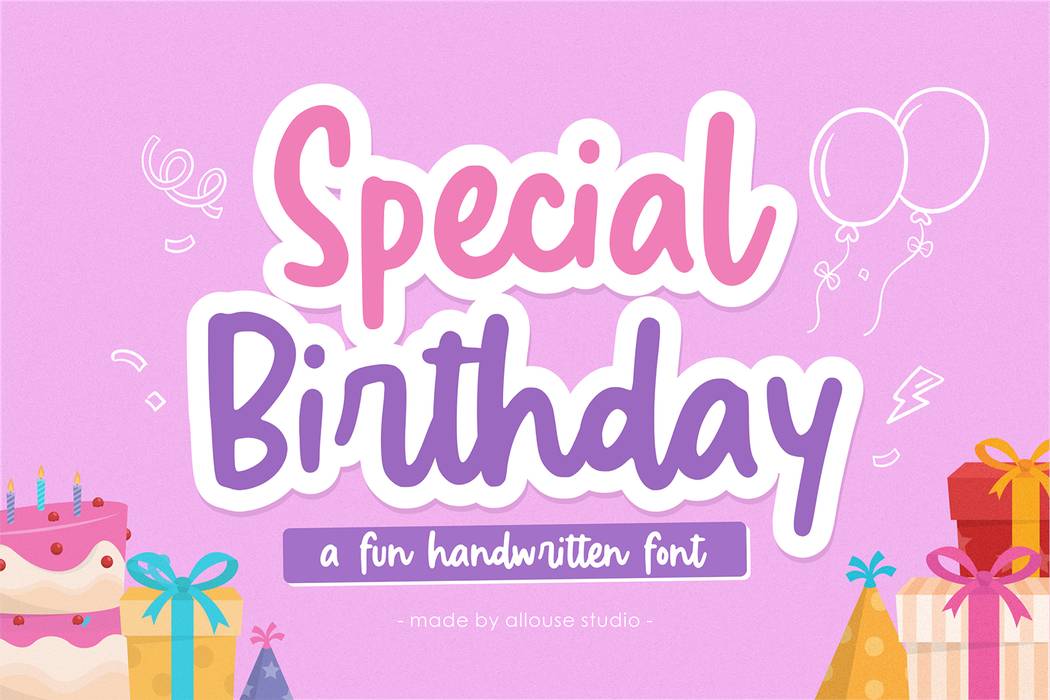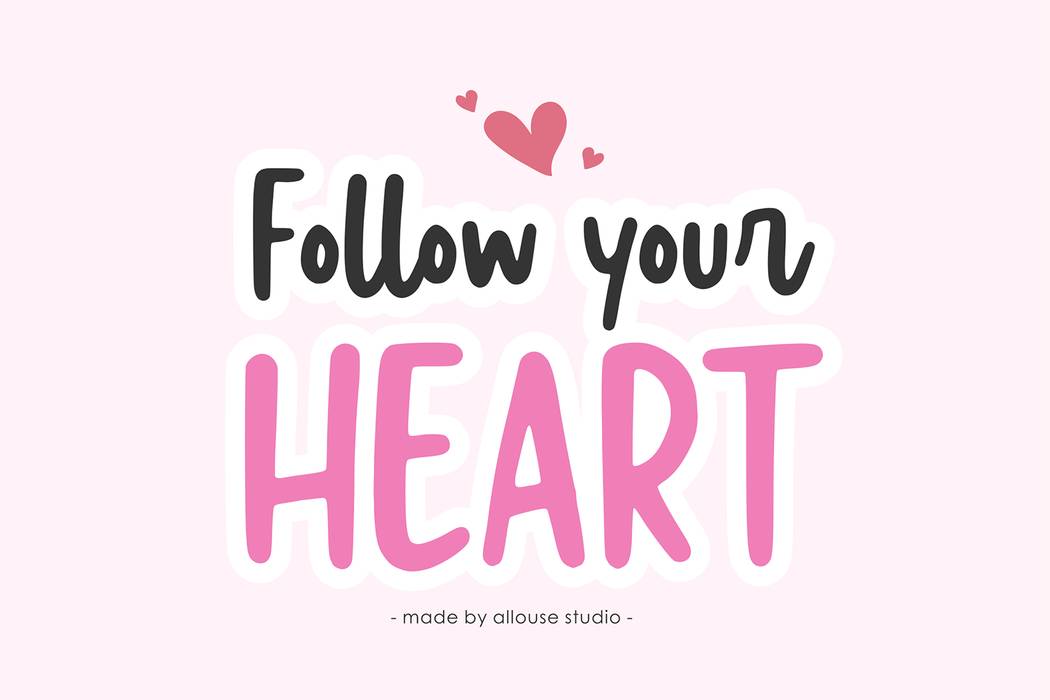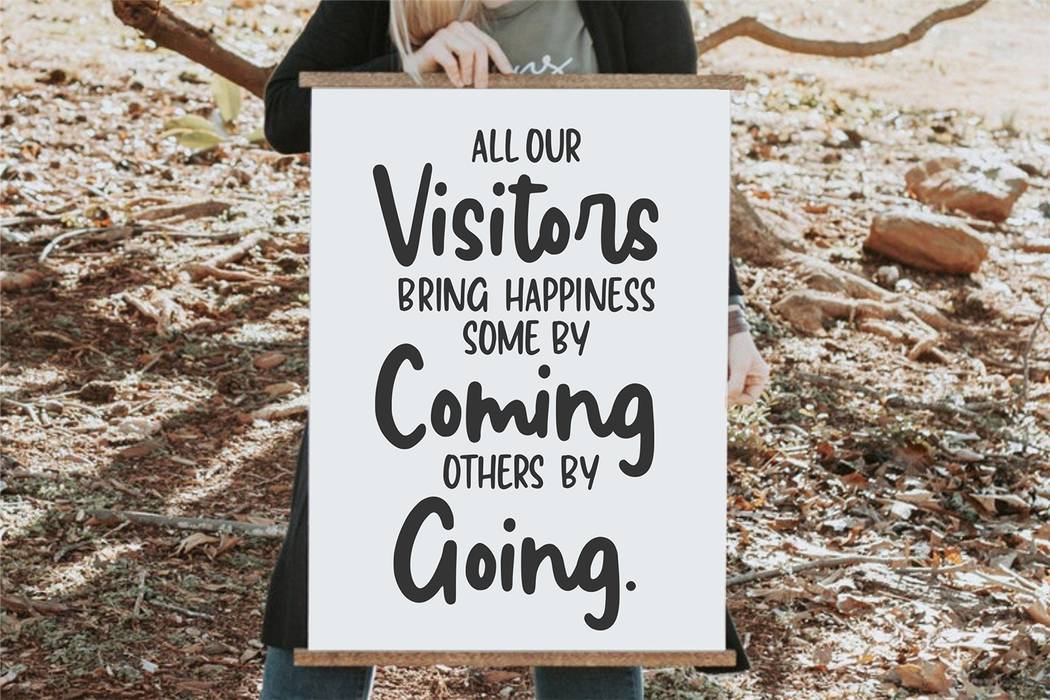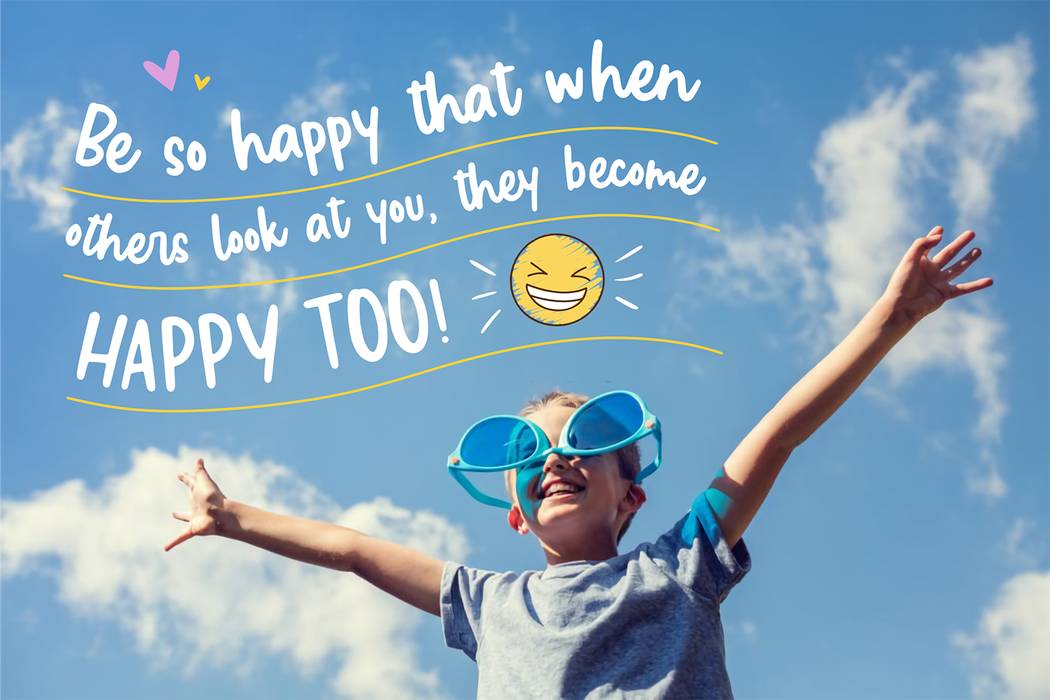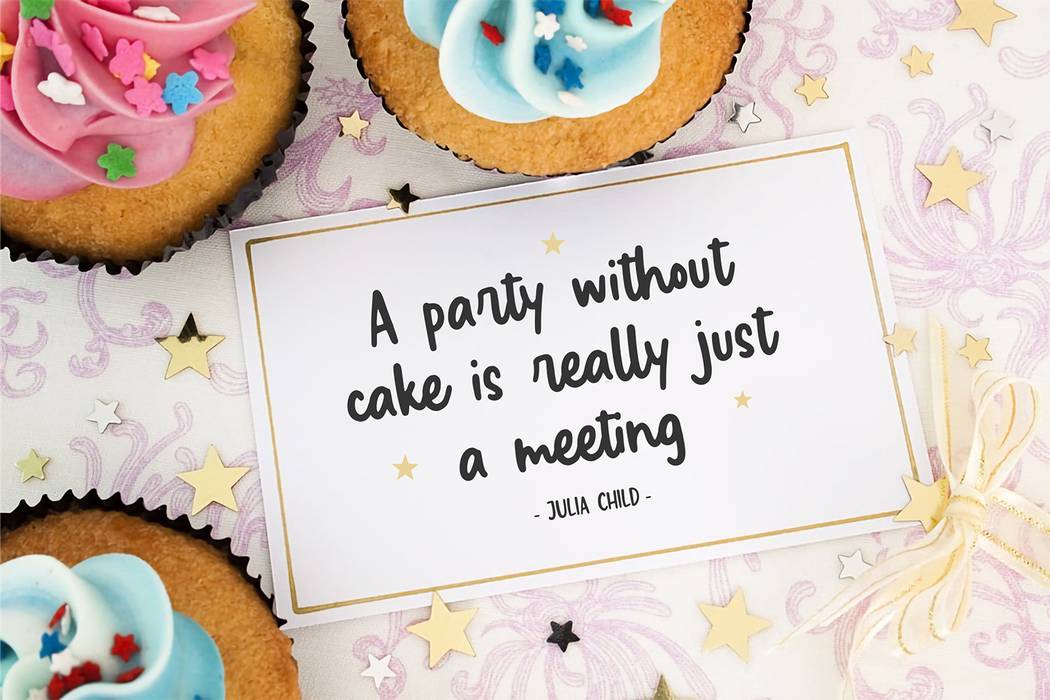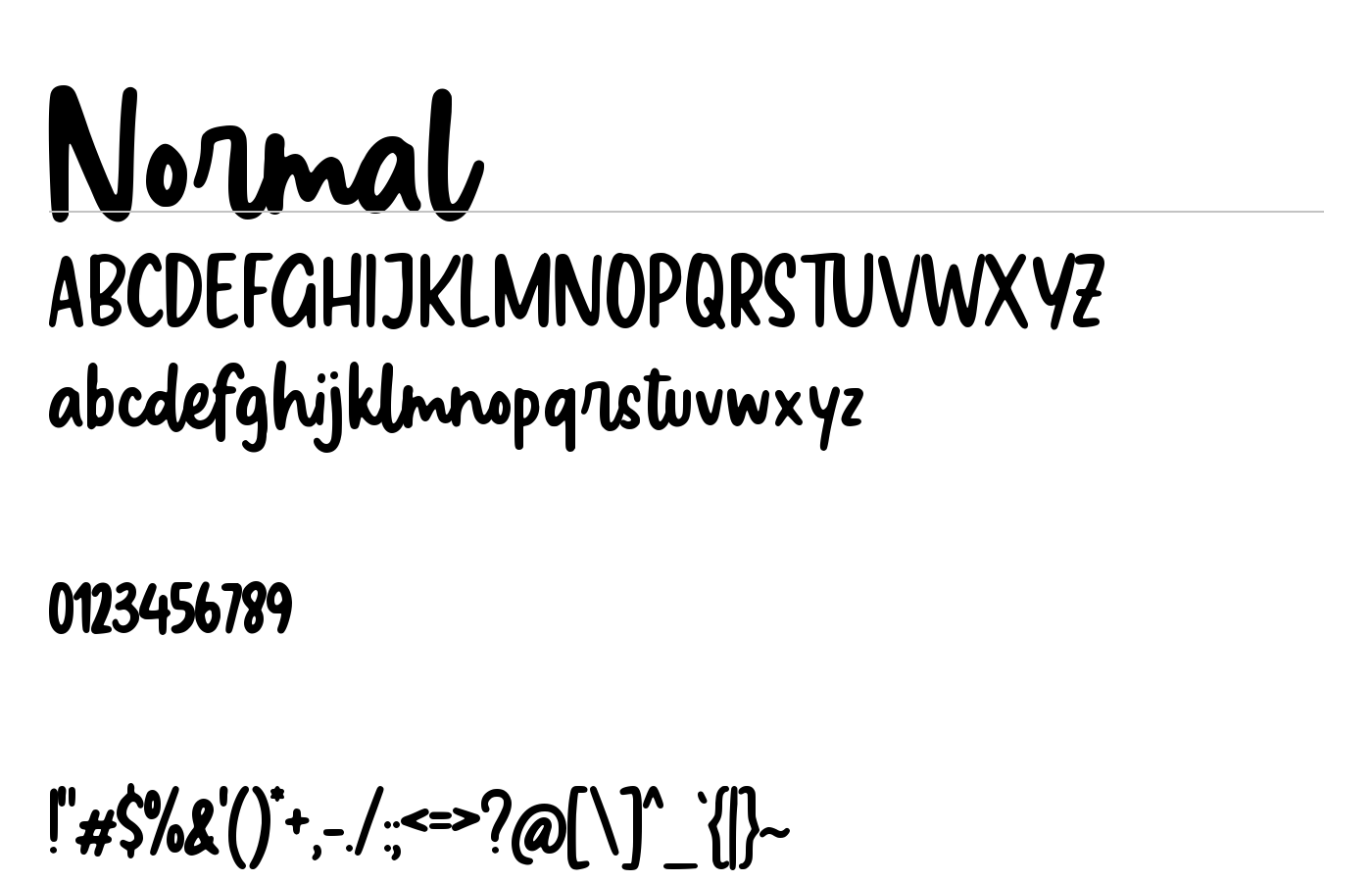
Special Birthday Font is a playful and casual handwritten sans serif typeface with a friendly, informal vibe. Its upright, slightly condensed letterforms feature smooth, rounded strokes and moderate contrast, making it ideal for fun, lighthearted designs like party invitations, greeting cards, and children’s content. This font works best in headlines and display text where its warm and approachable style can shine.
Special Birthday Font
About Special Birthday Font